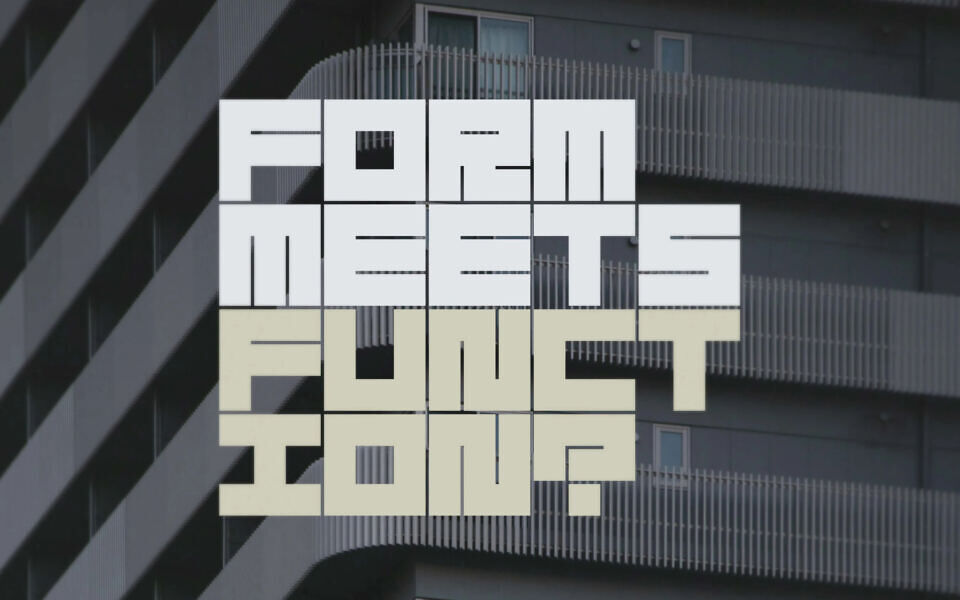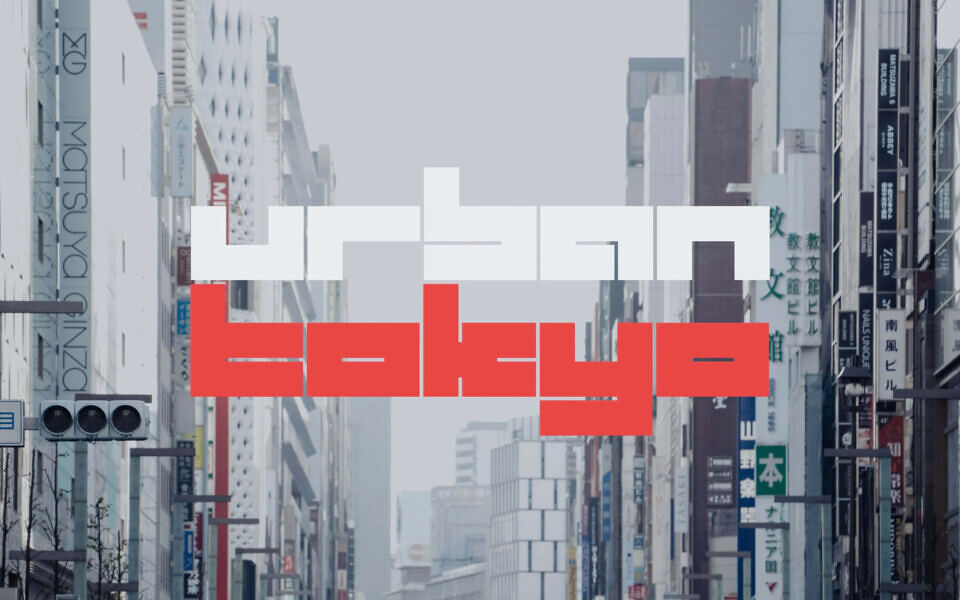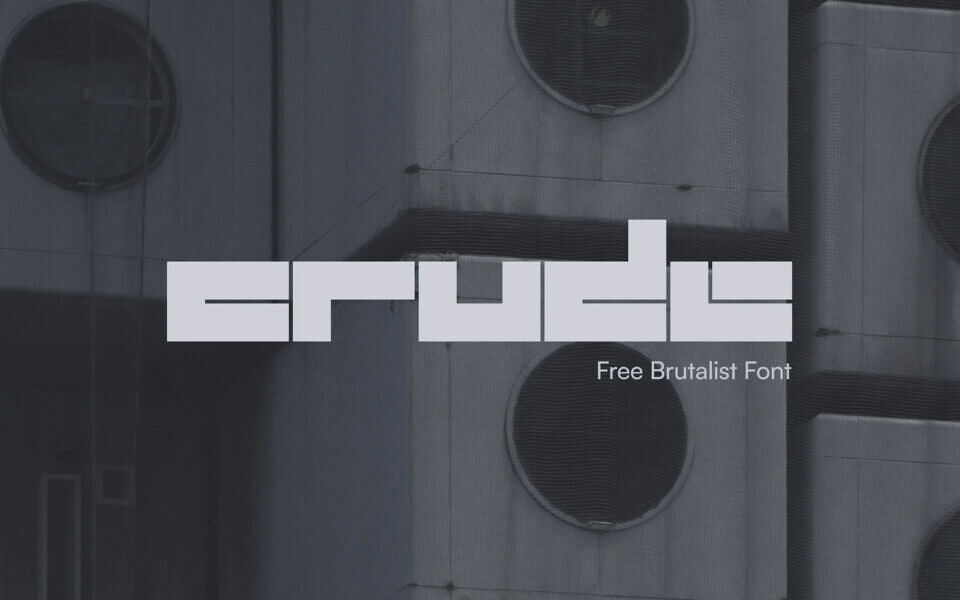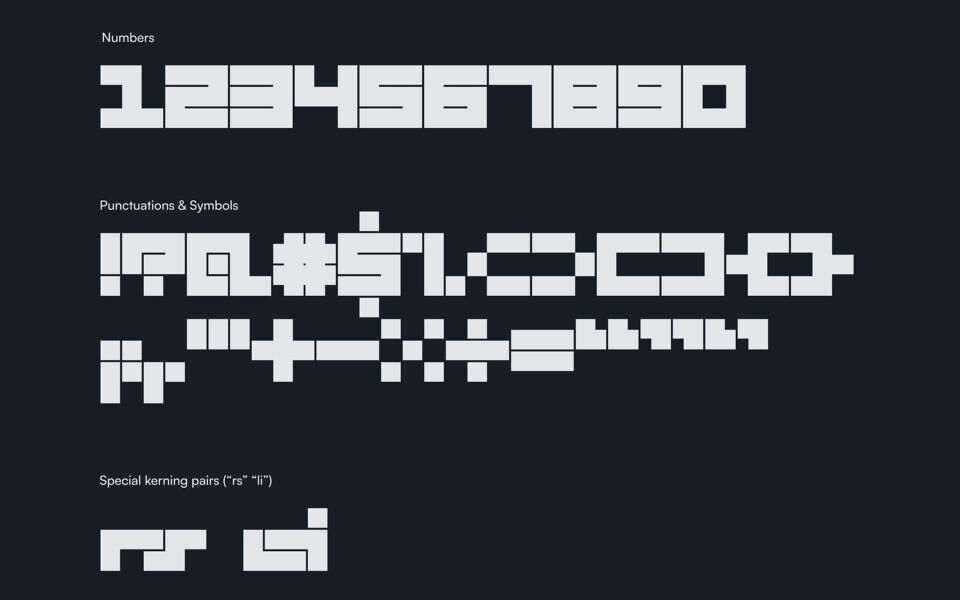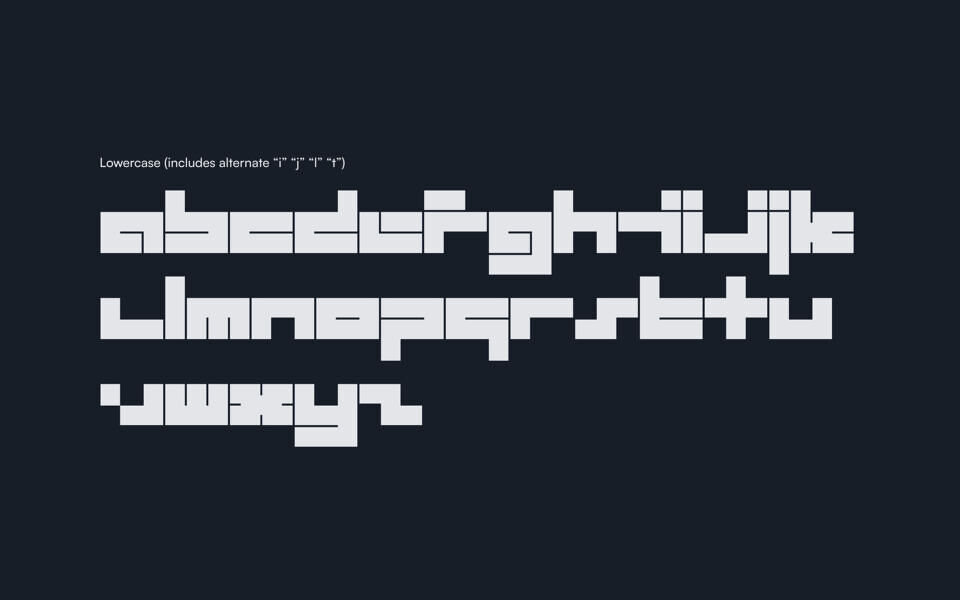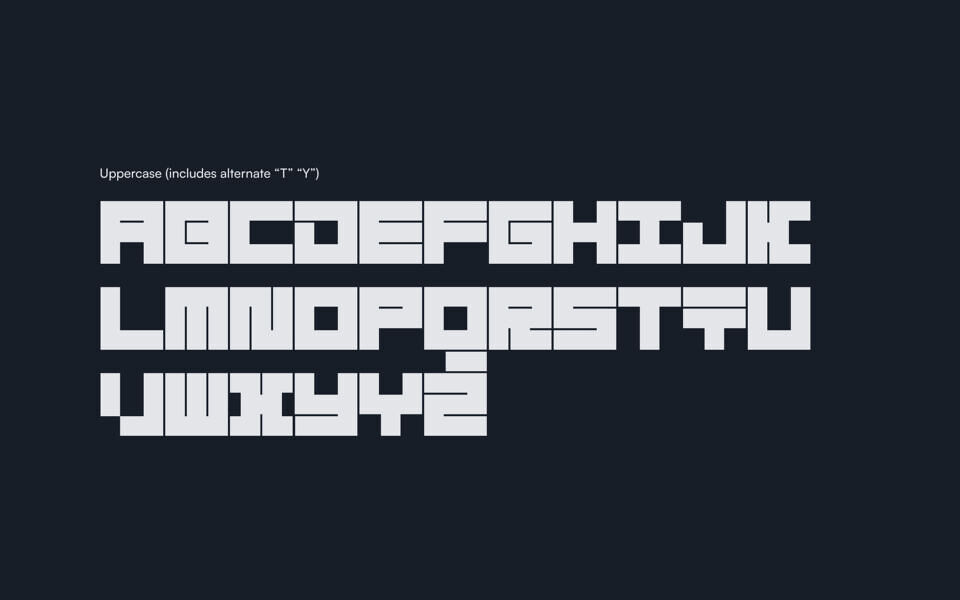
Crude Font
While designing his second font, Block, Junhan conceived Crude. He explored eliminating curves, constructing the font solely with thick, tightly stacked horizontal and vertical slabs. The result is a typeface resembling Tetris blocks, evoking the raw, monolithic aesthetic of brutalist architecture.
Crude font comes with basic latin characters including uppercases, lowercases, numbers and selected punctuations.
Designed by: Jun Han Sim